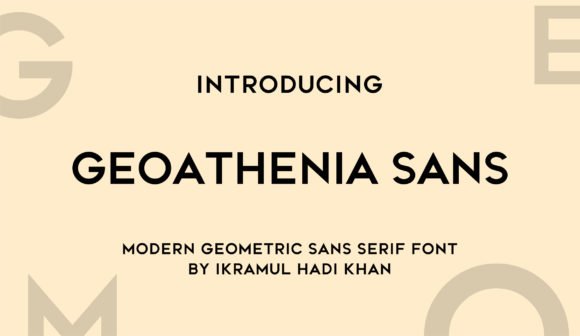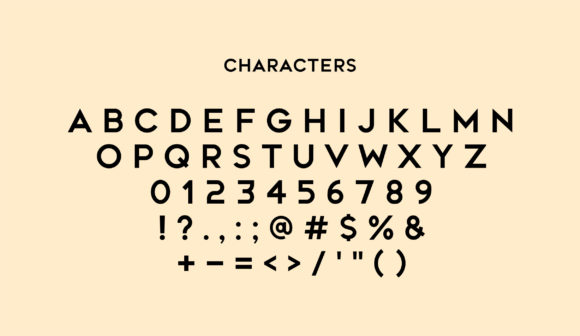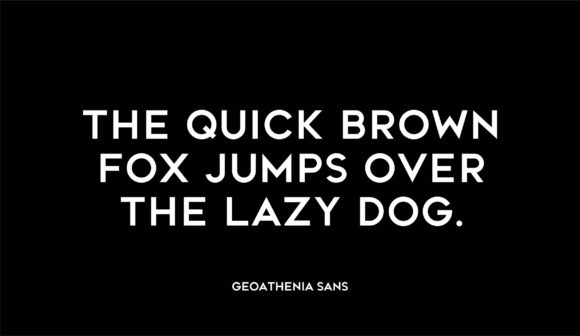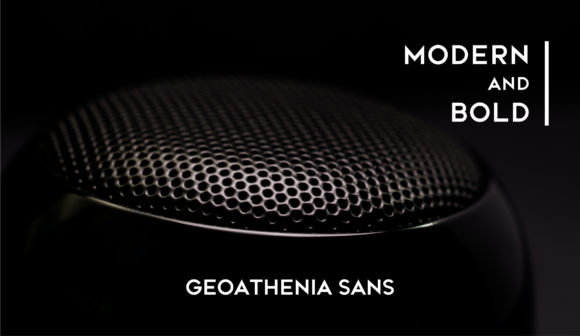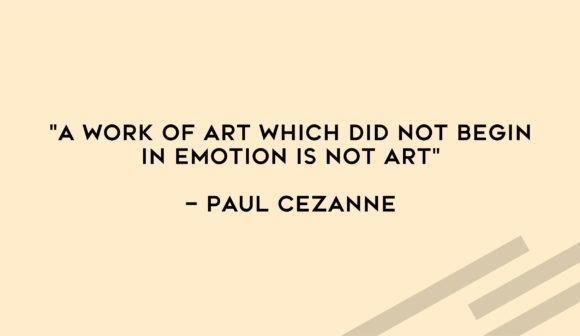
The Font that Brings Authenticity to Your Designs
Have you ever stared at a blank canvas, unsure of where to start? The blank page syndrome is a familiar feeling for many creatives. For me, it’s the moment when the ideas start flowing, and I know I’m onto something special. It’s the spark that sets the fire ablaze, and in this case, it’s the perfect opportunity to introduce you to the Geoathenia Sans Font.
This minimal and authentic sans serif font is the perfect companion for your next design project. Its versatility makes it a valuable addition to any designer’s toolkit, allowing you to create a wide range of projects that truly stand out. Whether you’re working on a logo, brochure, or website, the Geoathenia Sans Font is sure to bring a touch of sophistication and elegance to your work.
Geoathenia Sans Font Key Features
- Font Family: Geoathenia Sans, a clean and modern sans-serif typeface.
- Unique Characteristics: Geoathenia Sans features a unique blend of geometric and organic shapes, resulting in a distinctive and modern aesthetic.
Geoathenia Sans Font Review
As a designer, I’ve had the chance to work with the Geoathenia Sans font, and I must say it’s been an interesting experience. ✨ One of the things that works well with this font is its versatility. It’s suitable for a wide range of applications, from body text to headings, and even logos. The font’s clean and modern design makes it a great choice for any project that requires a professional and sleek look.
Another aspect that I appreciate about Geoathenia Sans is its readability. The font’s clear and legible design makes it easy to read, even at smaller font sizes. This is especially important for digital applications, where text can often be hard to read on smaller screens.
However, there are some limitations to the Geoathenia Sans font that I’d like to point out. ⚠️ One of the main issues is its limited character set. While the font does include a wide range of Latin characters, it lacks support for many non-Latin scripts. This can be a problem for designers working on projects that require multiple languages.
Overall, I think Geoathenia Sans is a solid font that’s worth considering for your next project. While it may have some limitations, its versatility and readability make it a great choice for many applications.
- ✨ Suitable for a wide range of applications
- ✨ Clean and modern design
- ✨ Highly readable
- ⚠️ Limited character set
- ⚠️ Lacks support for non-Latin scripts
Geoathenia Sans Font Practical Application Guide
Geoathenia Sans is a versatile font suitable for various design projects, including logos, brochures, and digital interfaces. To get the most out of it, use it for headings and titles to create a clean and modern look. Experiment with different font sizes and combinations to achieve the desired visual effect.
Alternatives to Geoathenia Sans Font
Open Sans is a modern sans-serif font designed by Steve Matteson. It’s highly legible and works well for both body text and headings. Use it for digital products, apps, and websites where a clean and minimalist look is desired.
Compared to Geoathenia Sans Font, Open Sans has a more neutral tone and a larger x-height, making it easier to read at small sizes. However, it lacks the unique flair and personality of Geoathenia Sans Font.
Lato is a sans-serif font designed by Łukasz Dziedzic. It’s a highly versatile font that works well for both print and digital media. Use it for corporate branding, marketing materials, and websites where a sophisticated look is desired.
Lato has a more elegant and refined look compared to Geoathenia Sans Font, but it can feel less approachable and friendly. Geoathenia Sans Font has a more playful and energetic feel that Lato lacks.